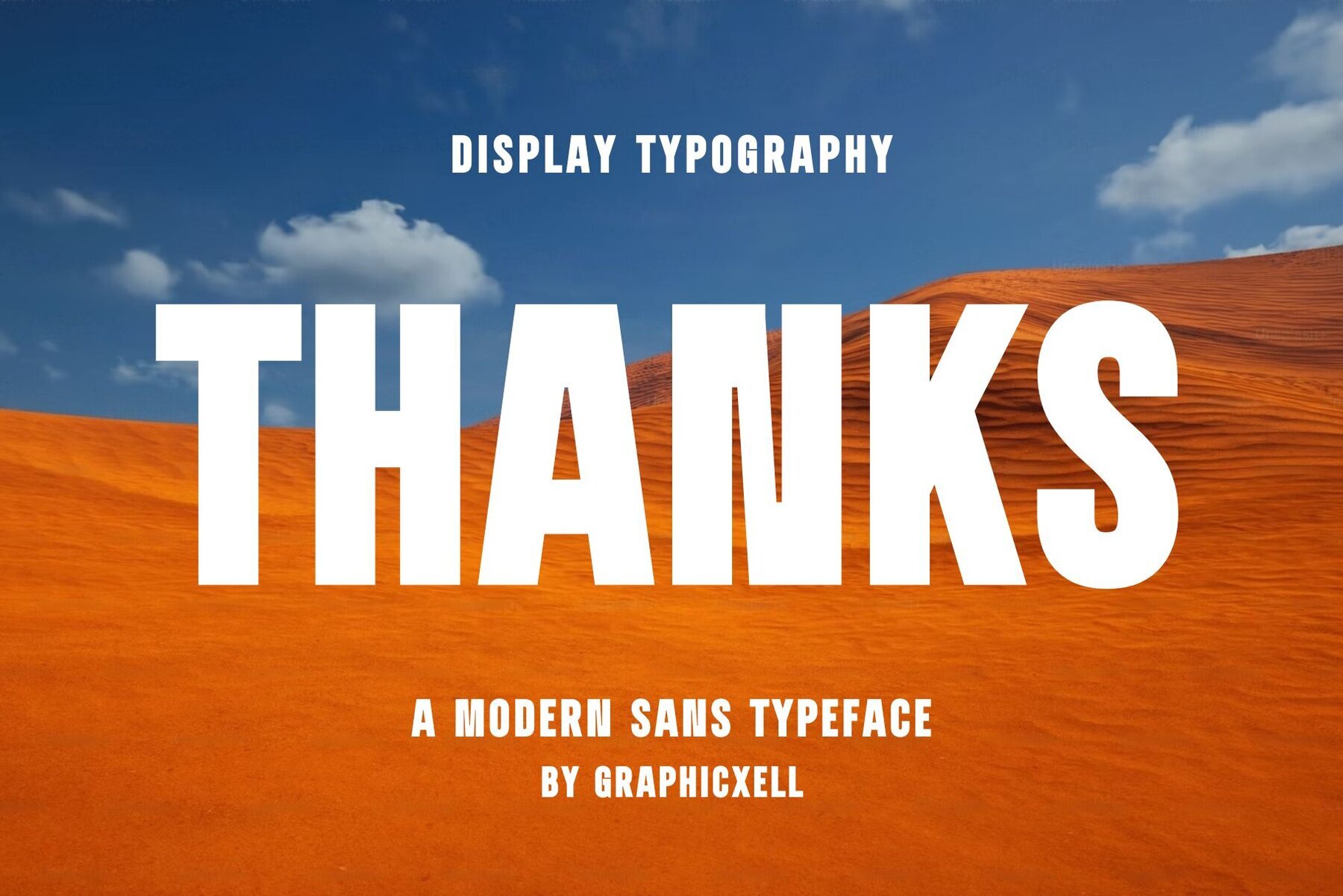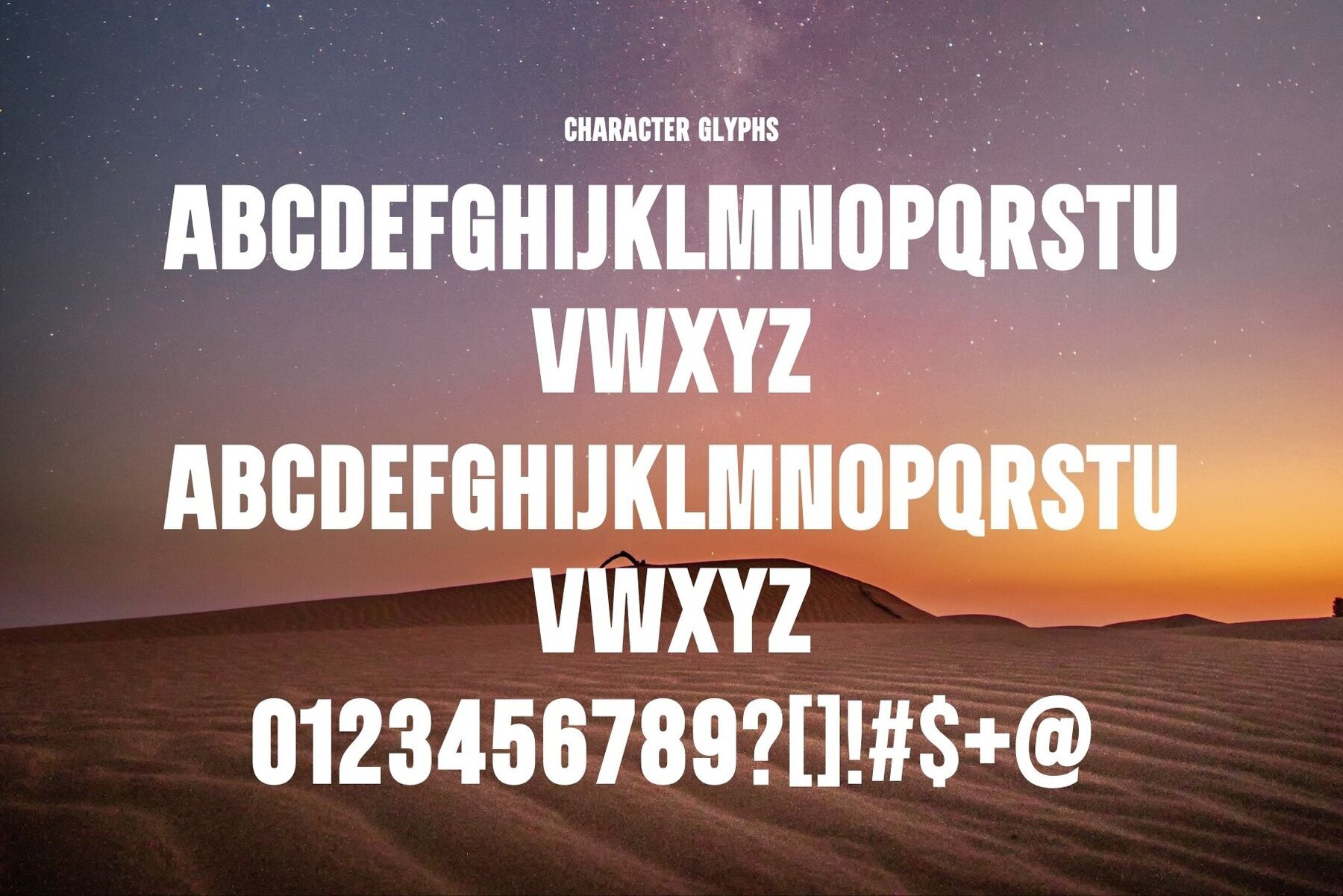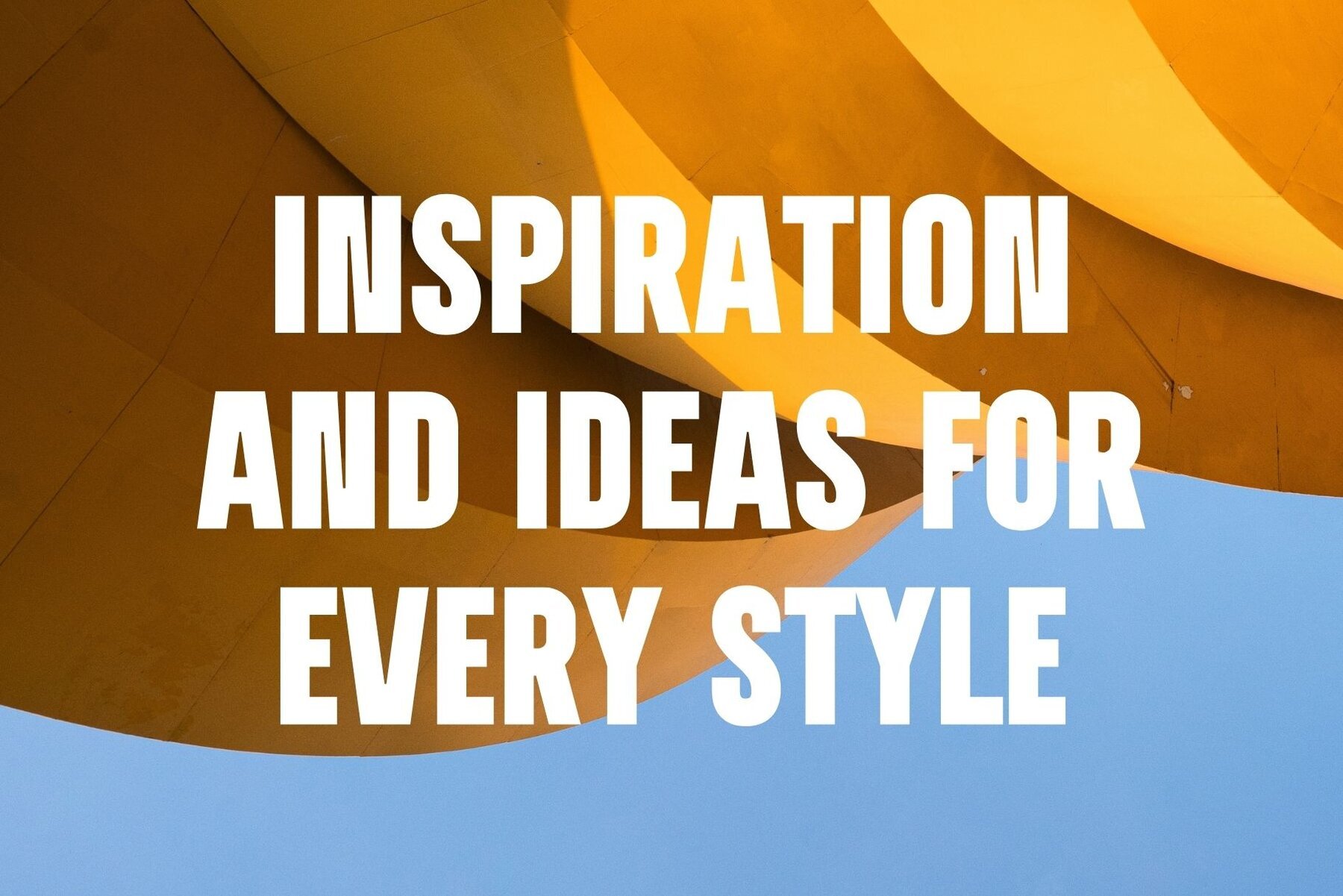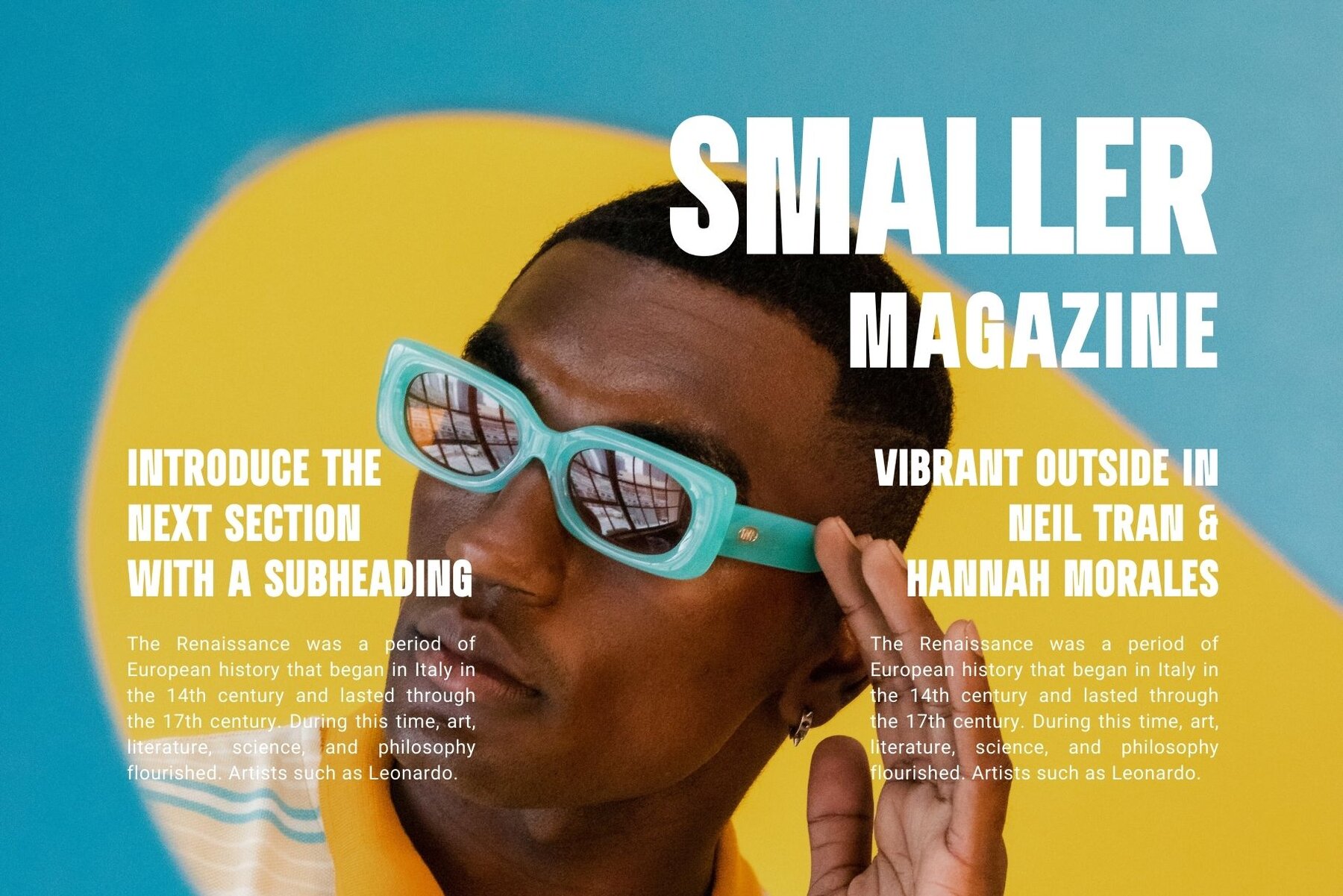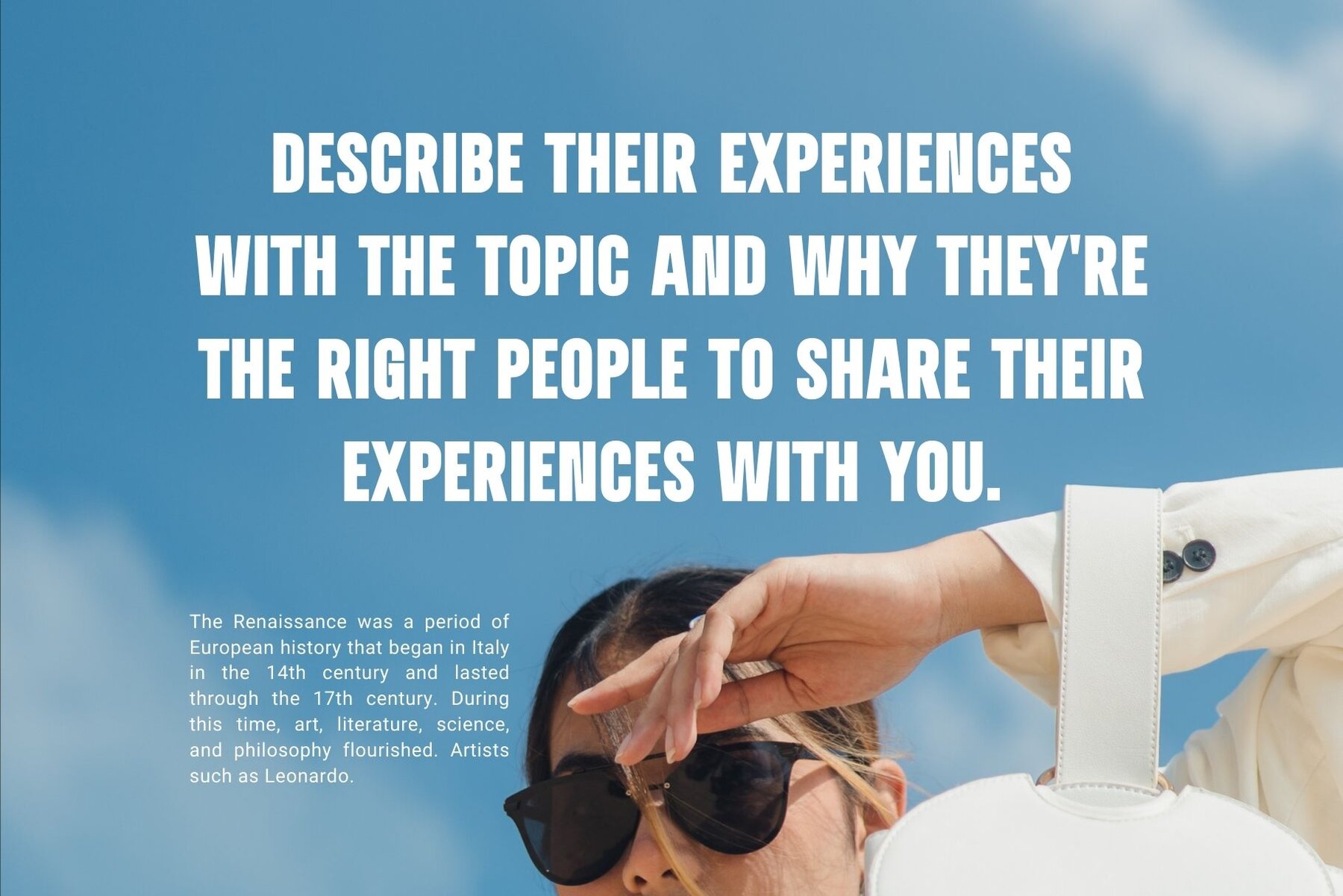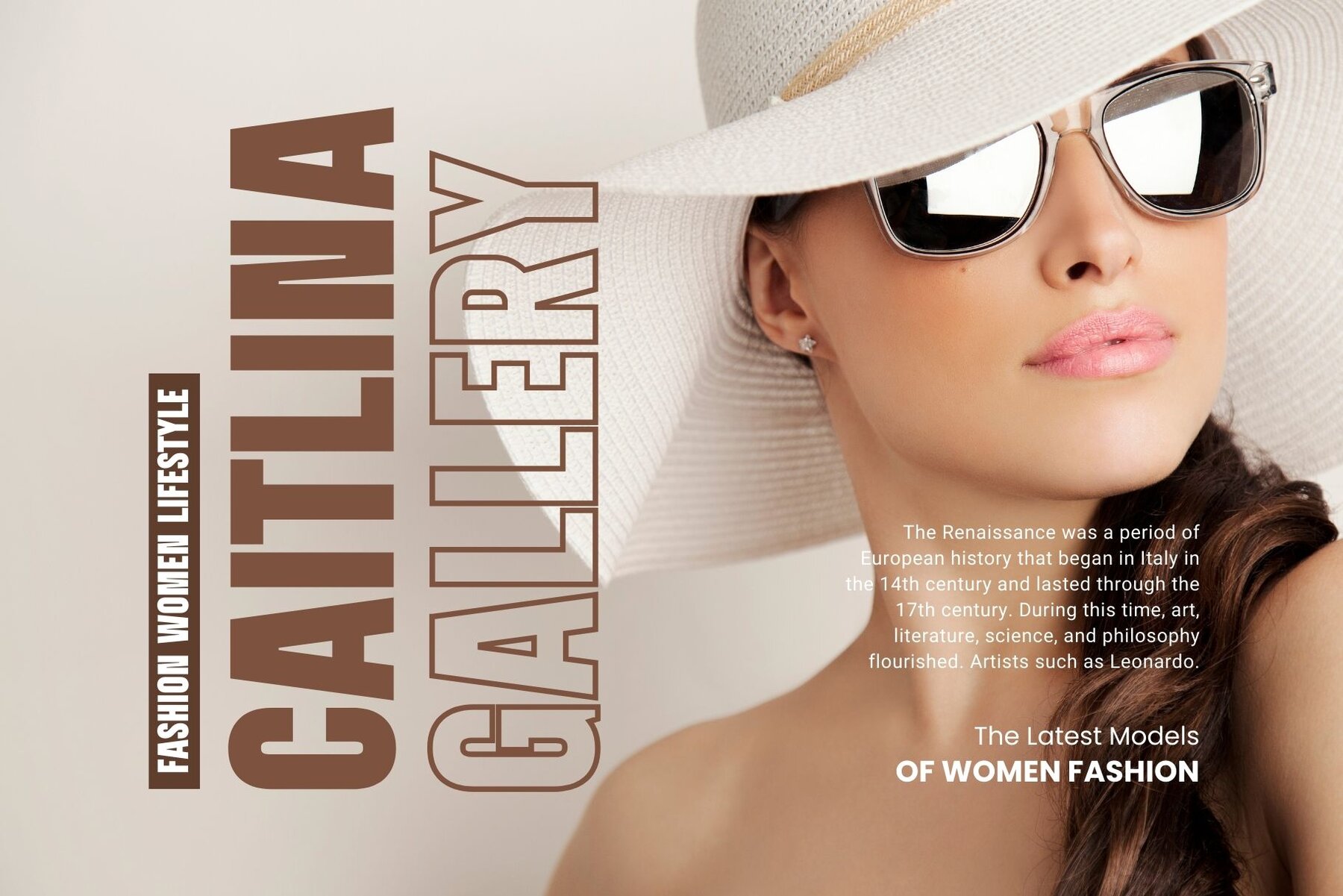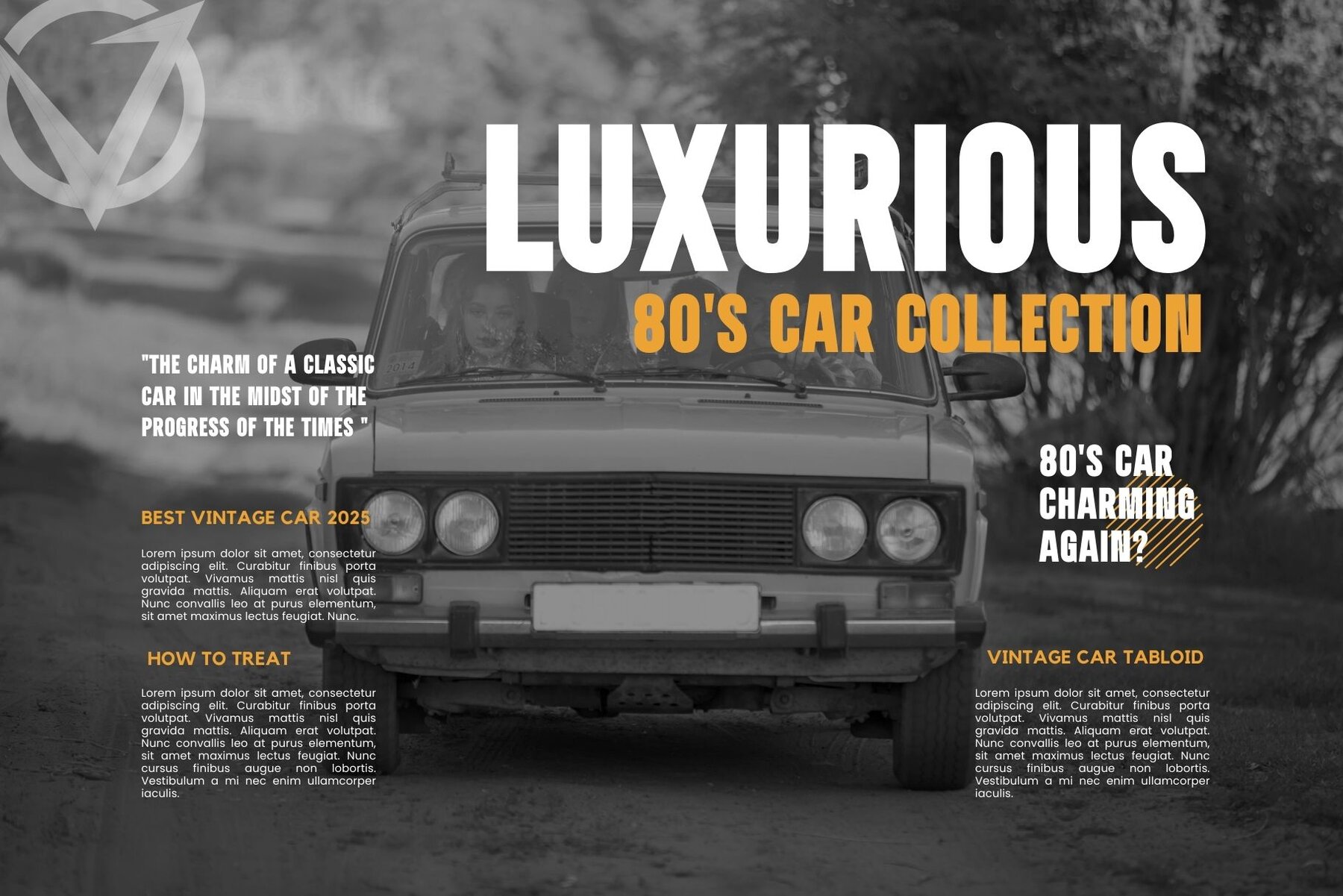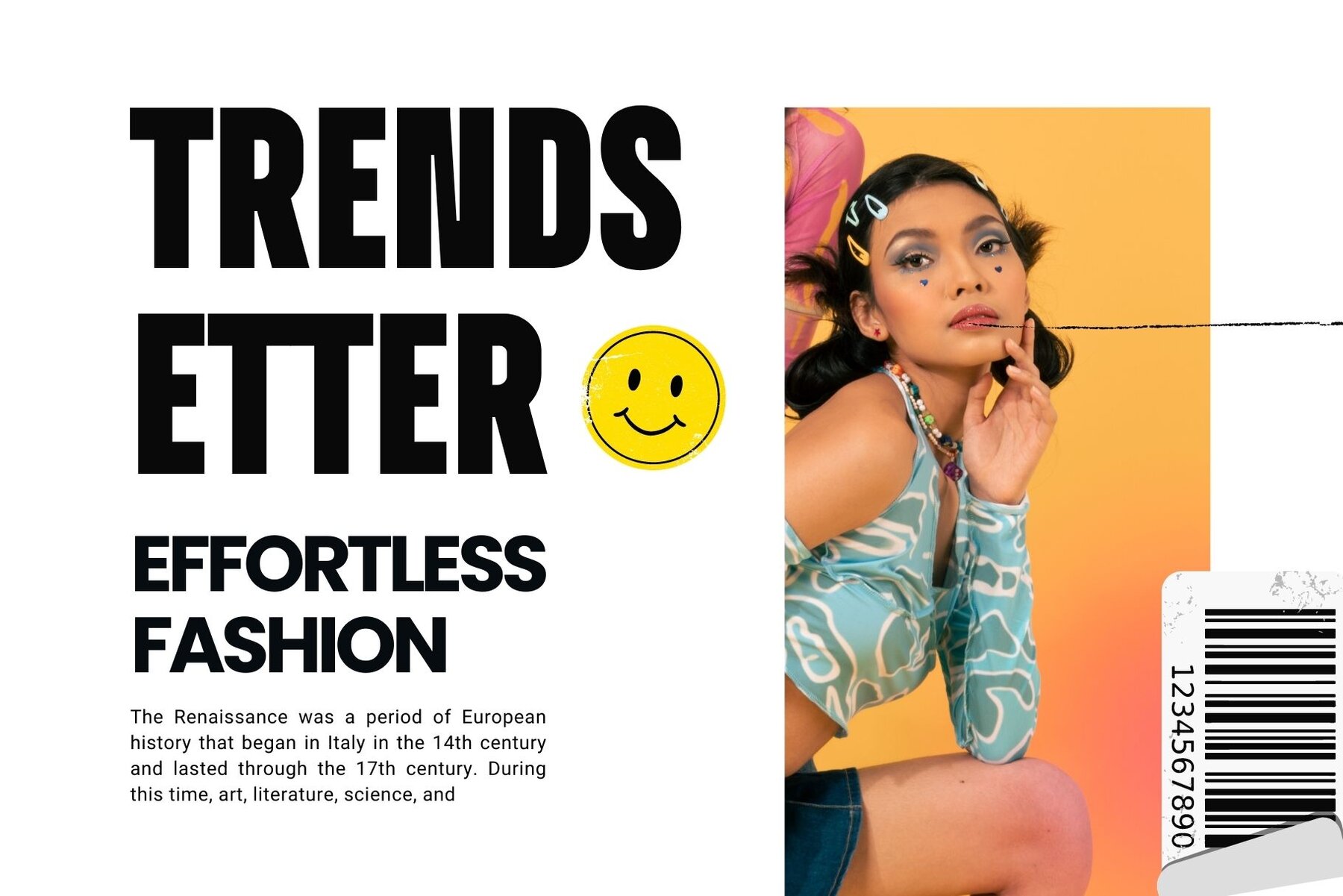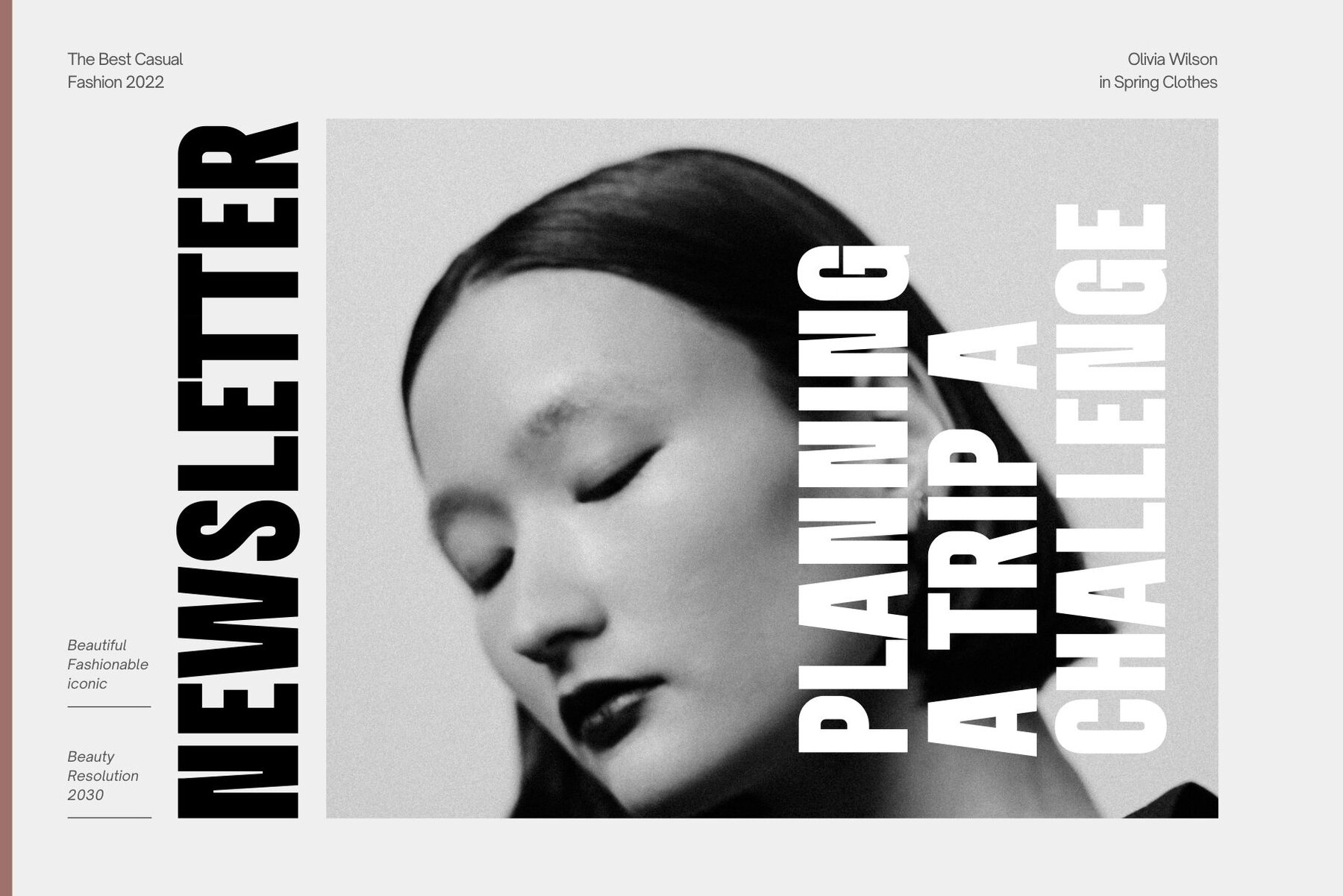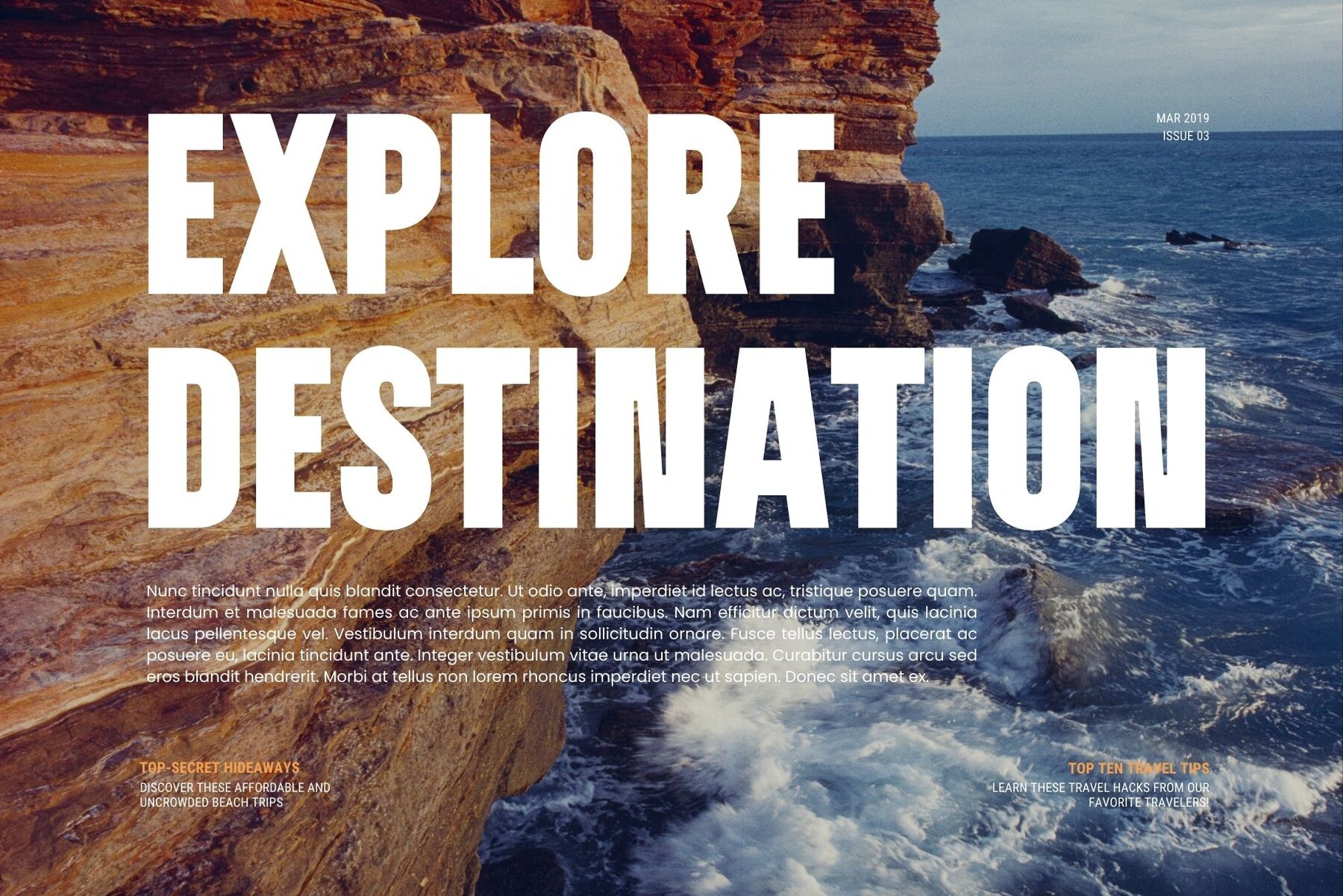
Thanks Font
Thanks Regular
Graphicxell draws inspiration from the iconic minimalist design style, making it an excellent choice for a wide range of creative projects. Ideal for crafting templates, brochures, videos, and advertising materials, this font brings elegance and sophistication to logos, invitations, layout designs, and beauty-focused creations.Graphicxell: Versatile Branding Font